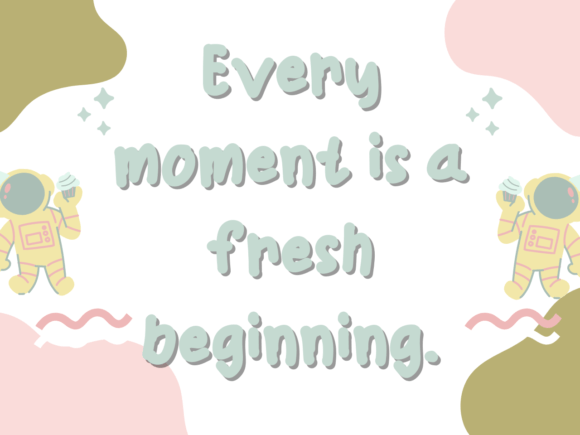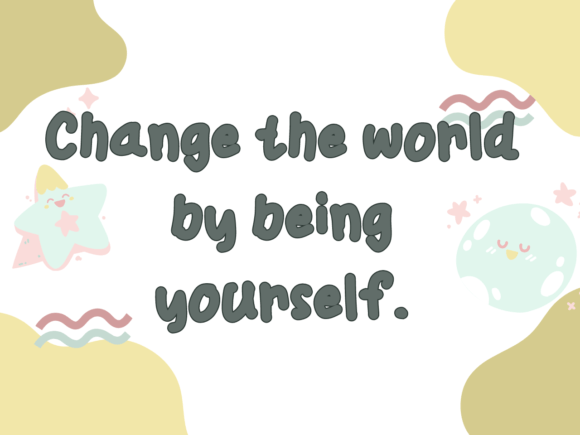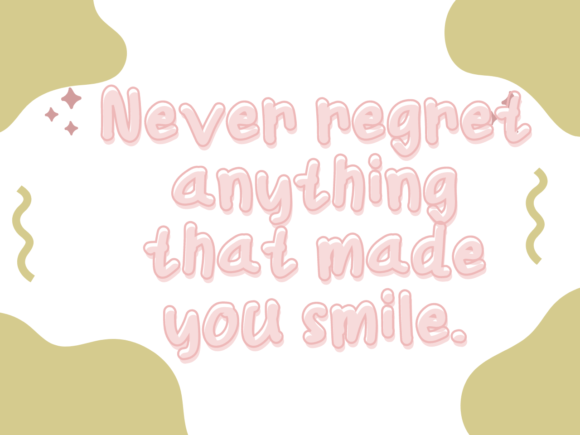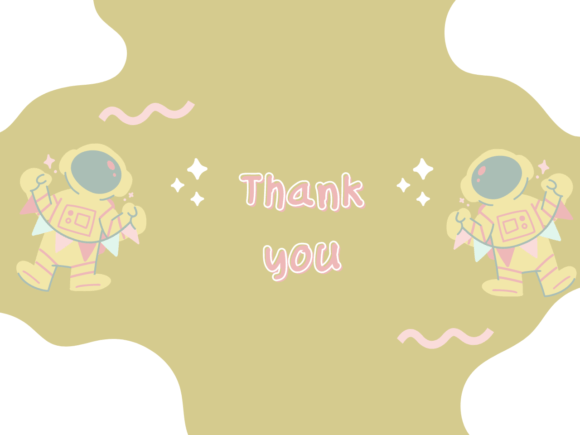
The Quest for the Perfect Font: Discovering Gloria
I still remember the frustration of working on a design project, hours spent crafting the perfect layout, only to hit a roadblock: finding the right font. My client wanted something sweet, friendly, and unique – a font that would make their brand stand out. After scouring the internet and trying out countless fonts, I stumbled upon Gloria Font. Its natural, handwritten style immediately caught my attention, and I knew I had found what I was looking for.
An Honest Review of Gloria Font
What I Love About Gloria ✨
• ✅ Unique and Handwritten Style: Gloria’s natural, flowing script makes it perfect for a wide range of designs, from invitations to branding materials.
• ✅ Highly Versatile: Whether you’re working on a digital project or a print design, Gloria adapts seamlessly.
• ✅ Easy to Read: Despite its unique style, Gloria remains clear and readable, even at smaller font sizes.
• ✅ OpenType Features: Gloria supports OpenType features, allowing for advanced typographic control and customization.
• ⚠️ Limited Character Set: While Gloria has a wide range of characters, it may not support every special character or glyph you need.
• ⚠️ Kerning Issues: As with any font, you may need to adjust kerning for optimal results, especially when using Gloria at larger font sizes.
The Story Behind Gloria Font
Gloria was designed with the intention of creating a font that feels both personal and approachable. The designer aimed to capture the essence of handwritten scripts, making Gloria perfect for designs that require a human touch. Whether it’s for a brand looking to stand out or a crafty hobbyist working on a personal project, Gloria offers the perfect blend of style and readability.
Q: What makes Gloria Font unique?
A: Gloria’s handwritten style and natural flow make it stand out, offering a fresh alternative to more traditional fonts.
Q: Does Gloria support OpenType features?
A: Yes, Gloria supports OpenType features, allowing for advanced typographic control, including ligatures and stylistic alternates.
Q: Is Gloria suitable for body text?
A: While Gloria is primarily designed for display purposes, its readability makes it suitable for short blocks of body text, especially at larger font sizes.